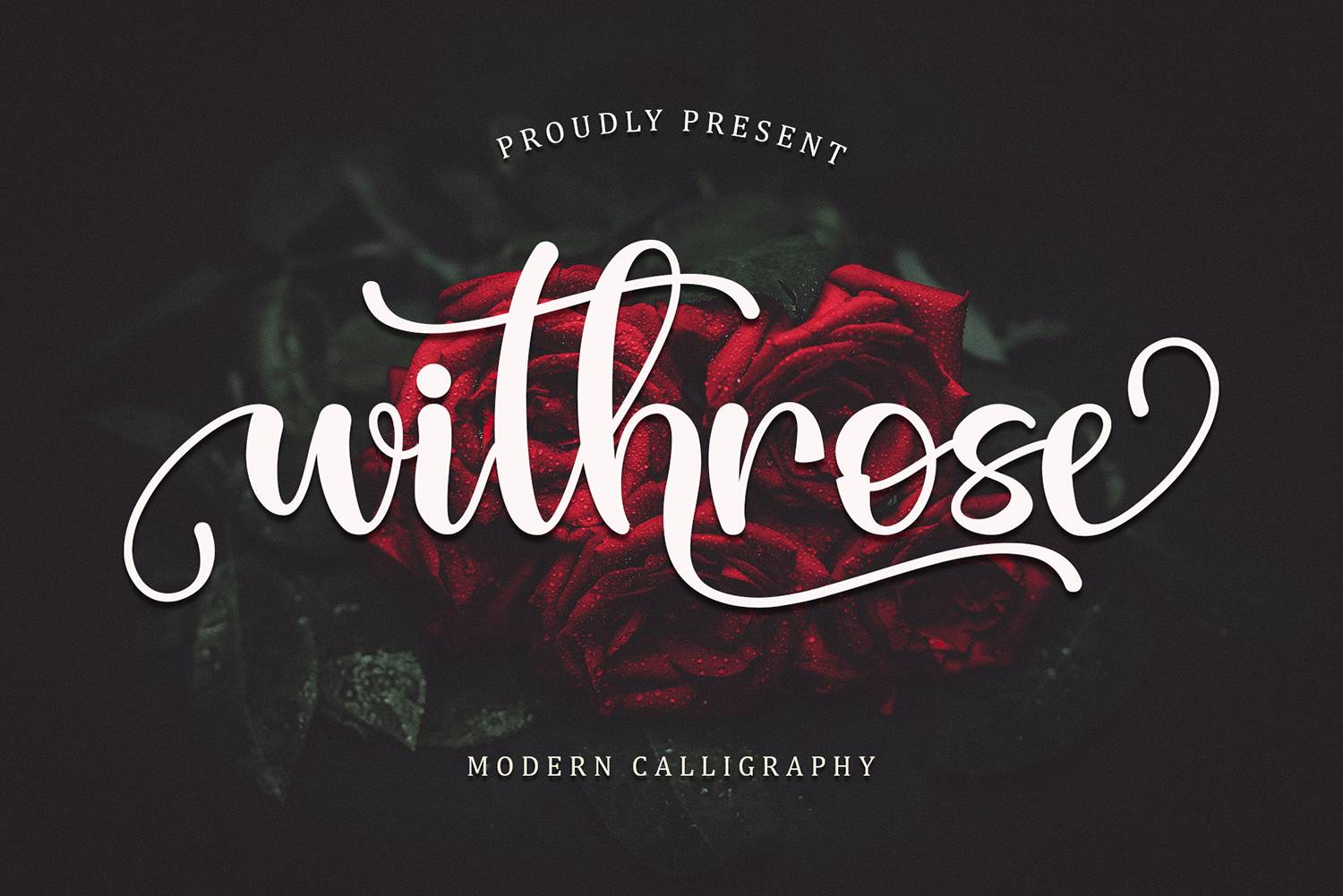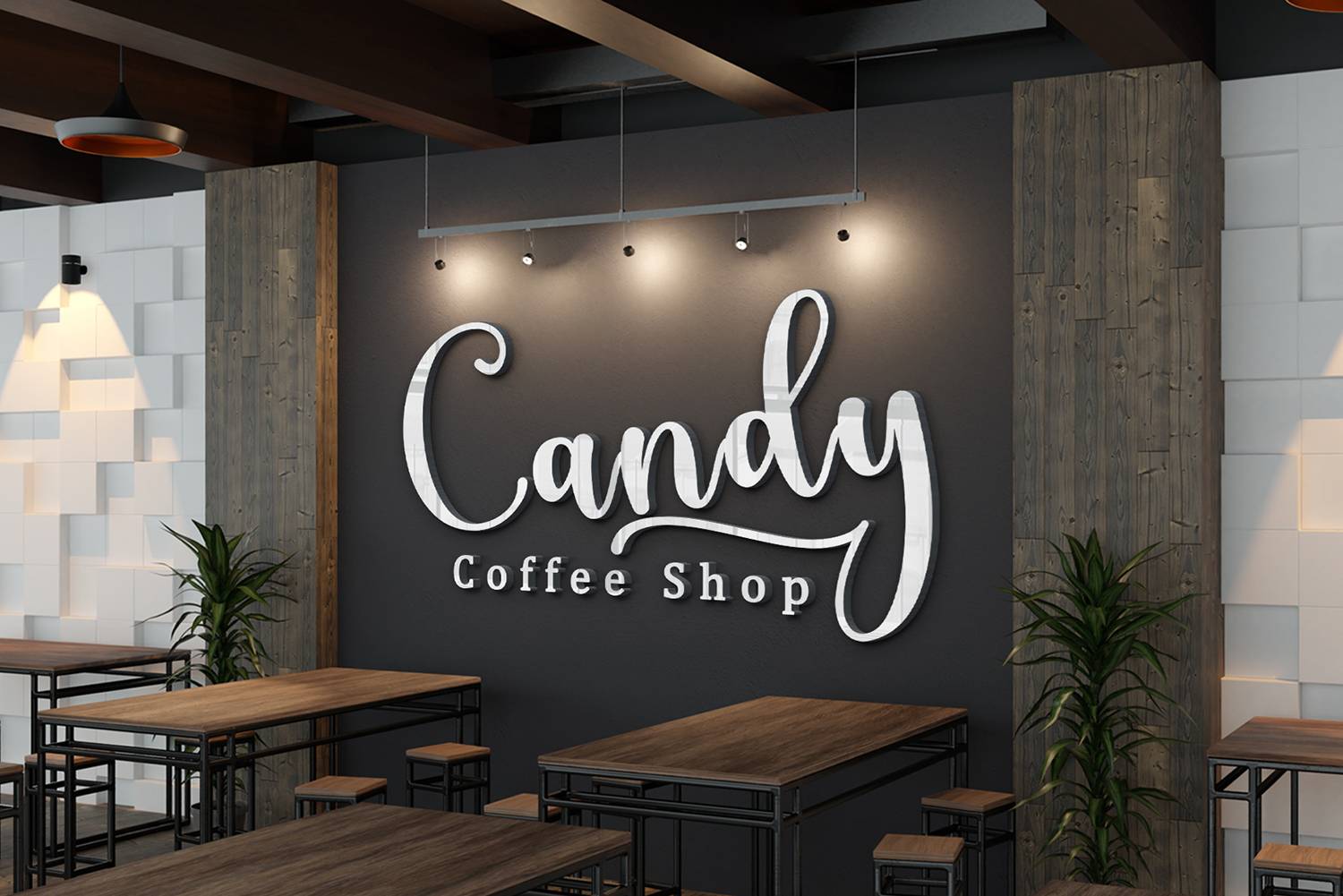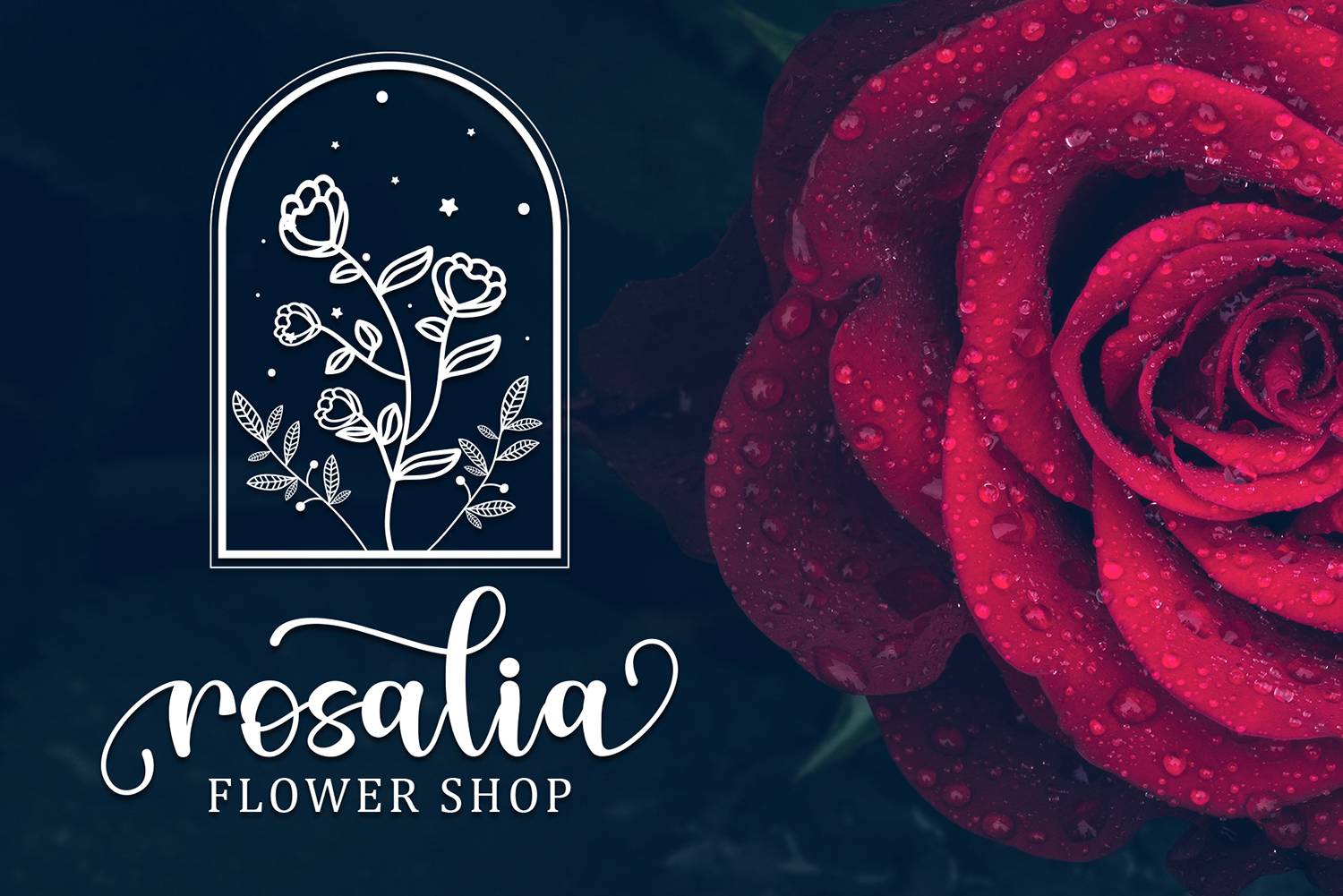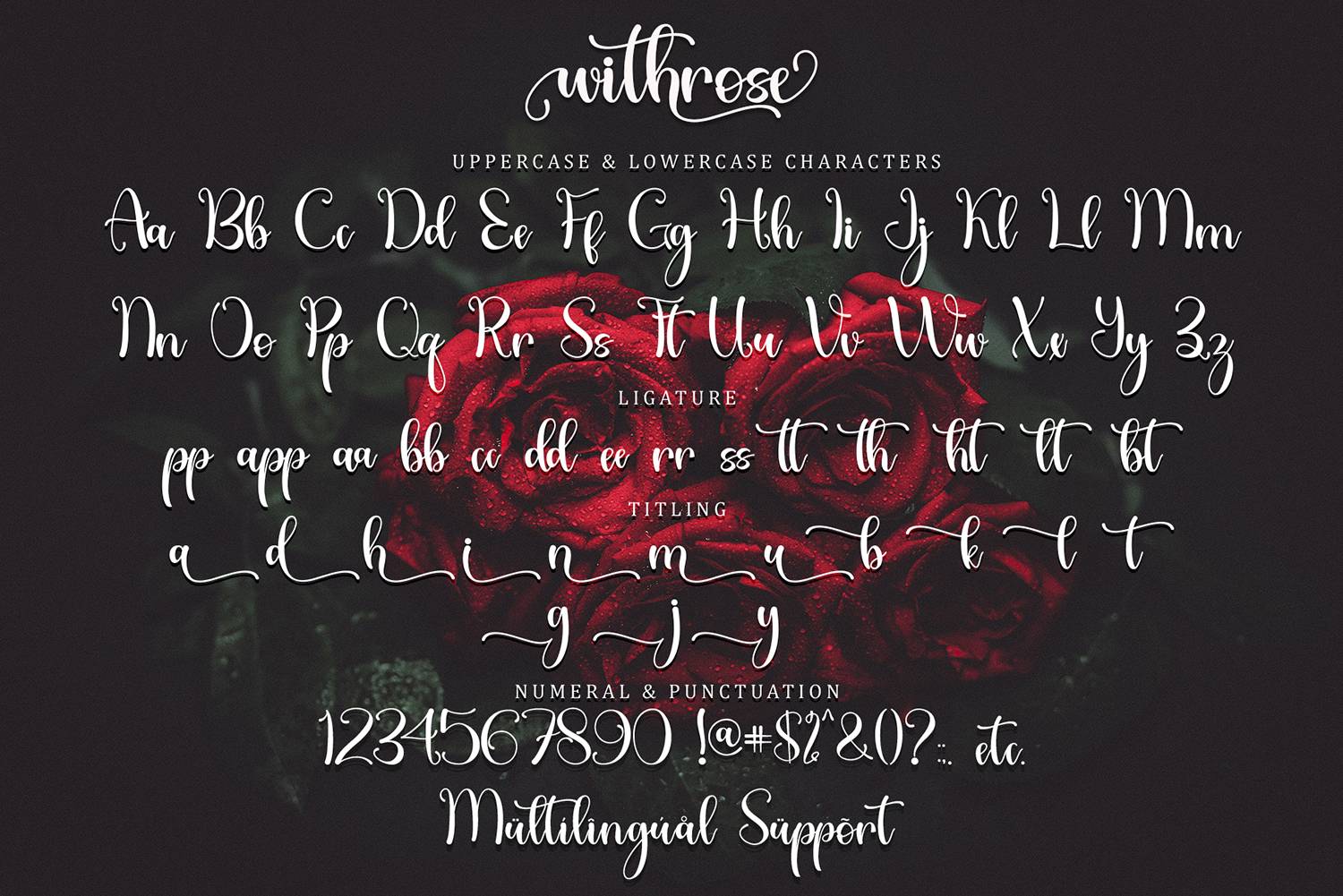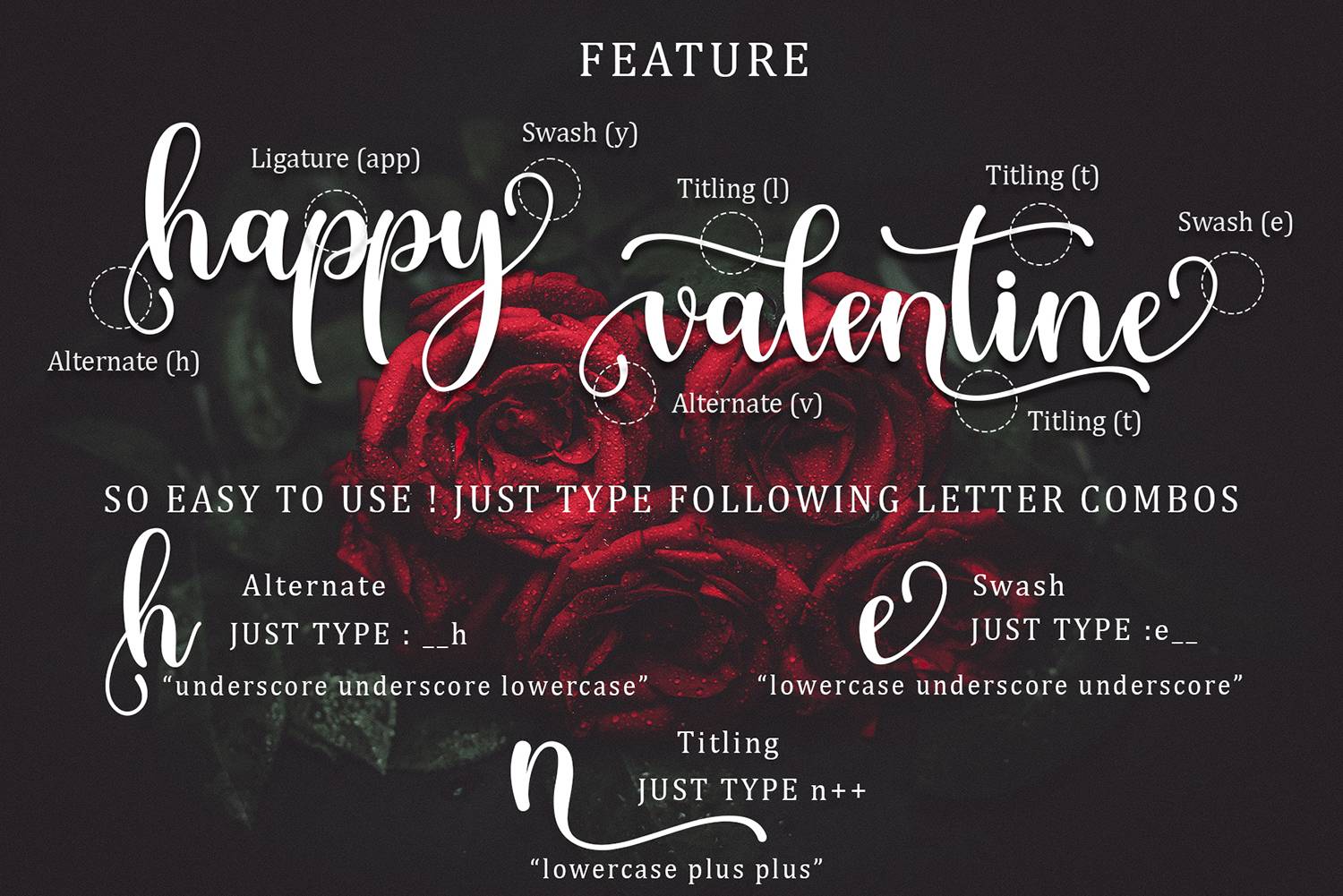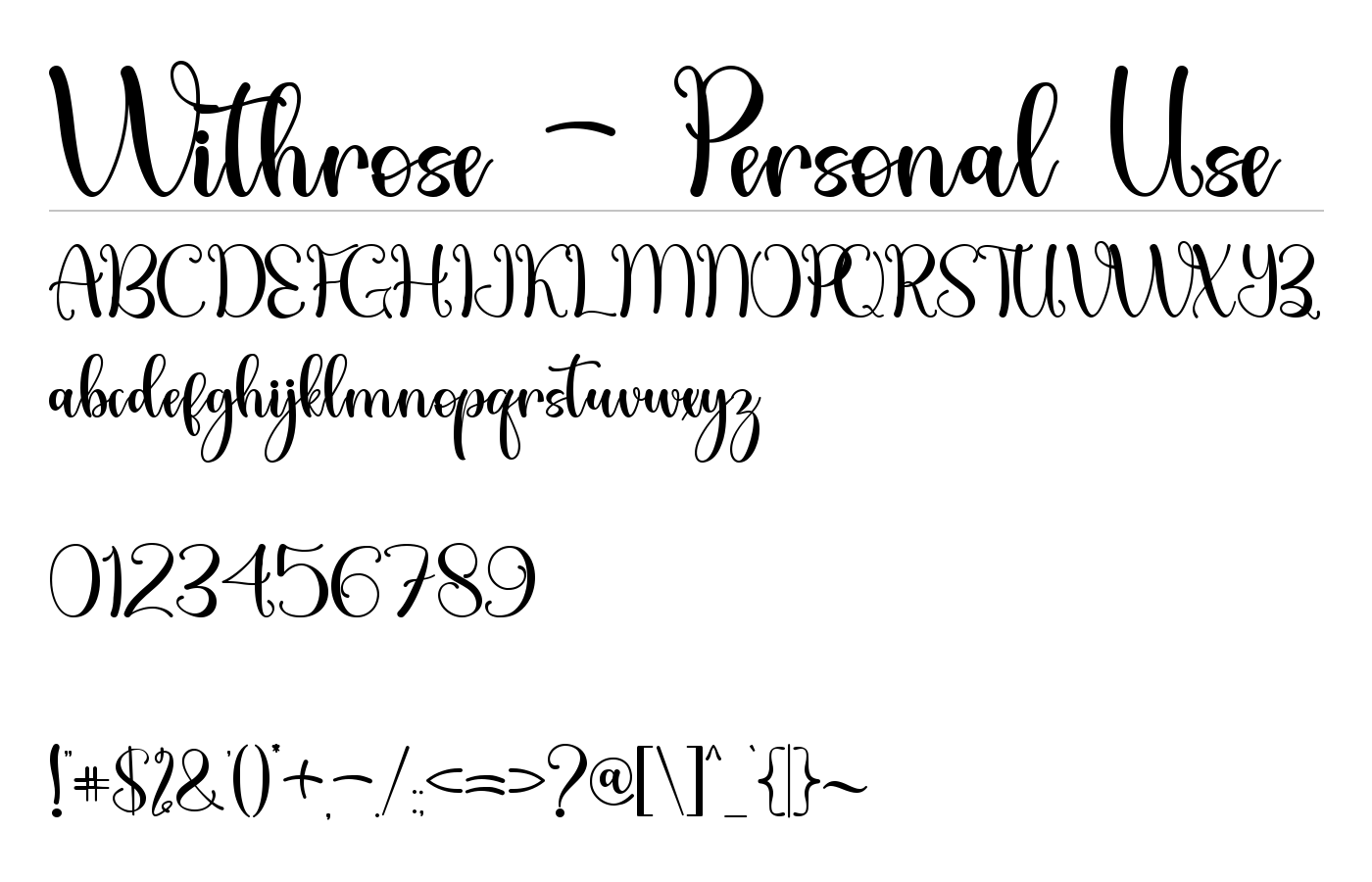
Withrose Font is an elegant and playful script typeface featuring flowing, handcrafted letterforms with delicate swirls and flourishes. Its varying stroke widths and decorative uppercase letters lend a charming, whimsical feel, making it perfect for invitations, branding, and projects that seek a personal, creative touch. This font shines in designs that benefit from a stylish, feminine, and artistic vibe.
Withrose Font
About Withrose Font